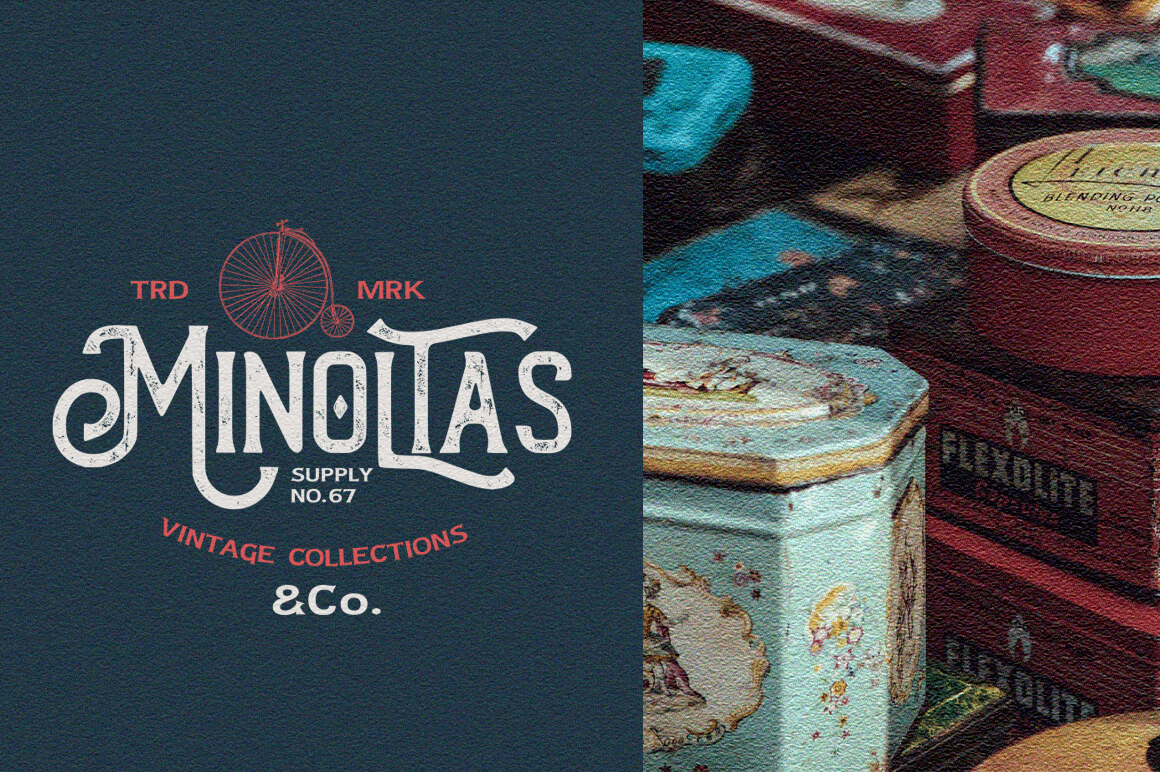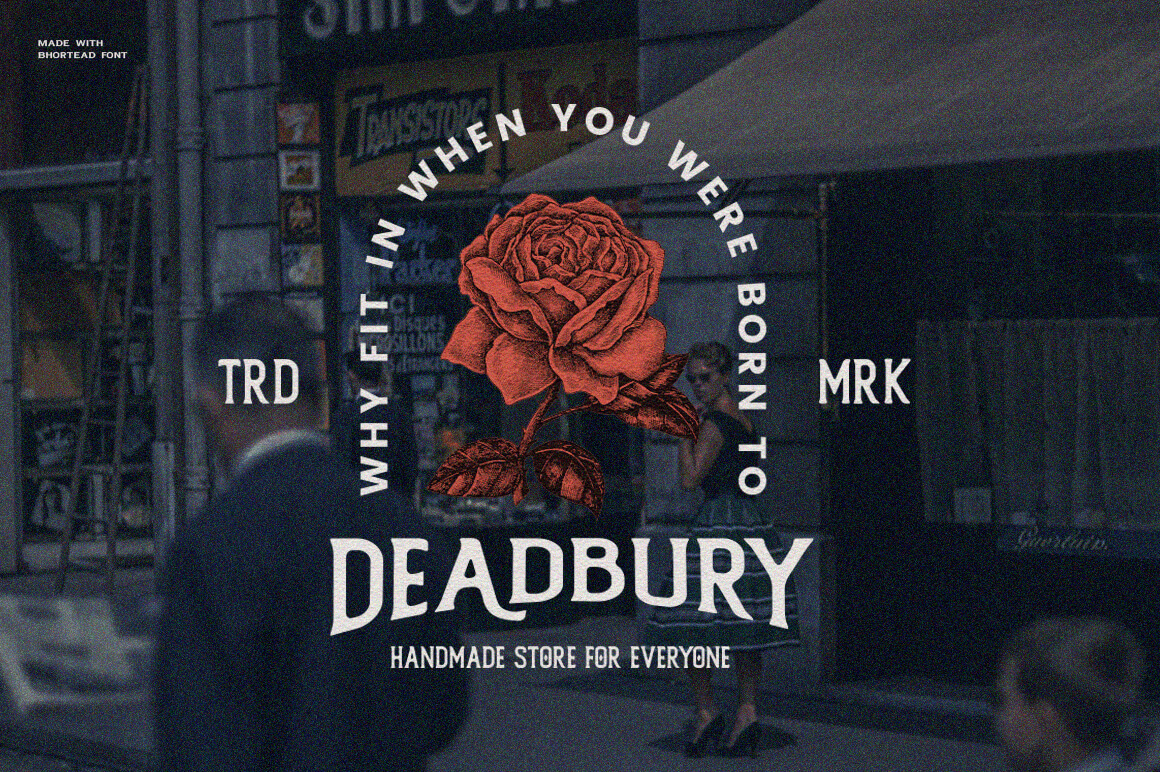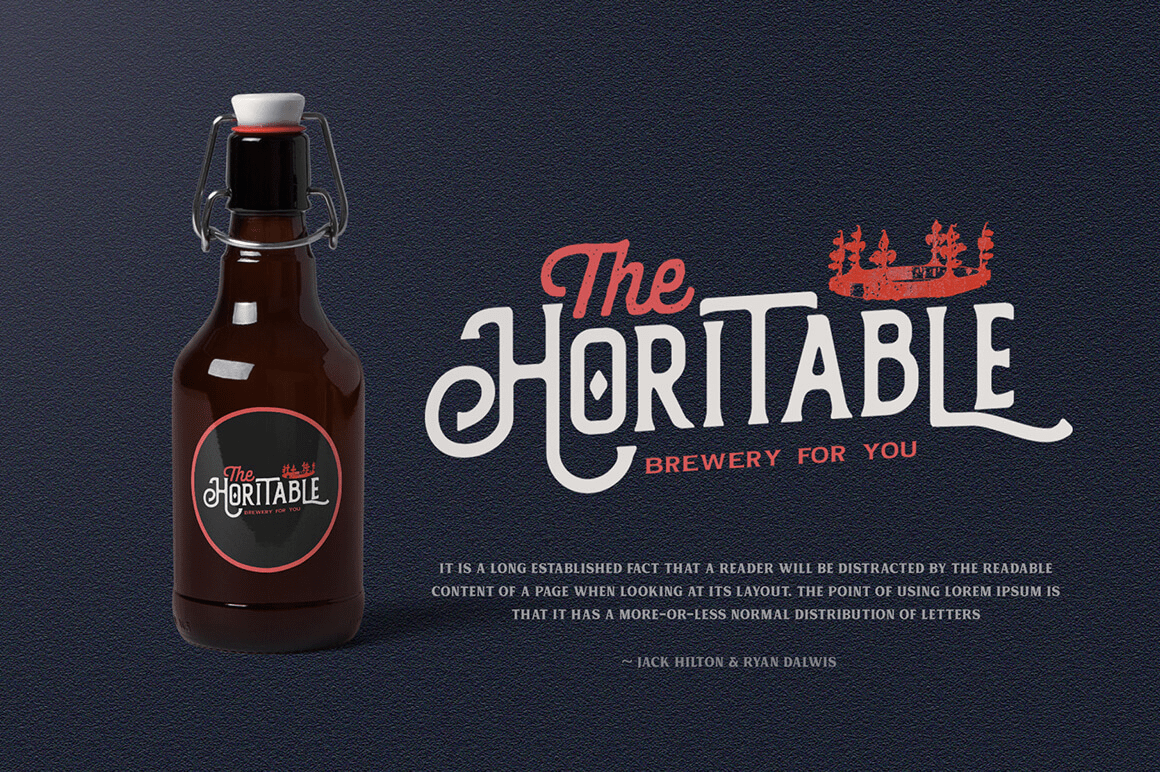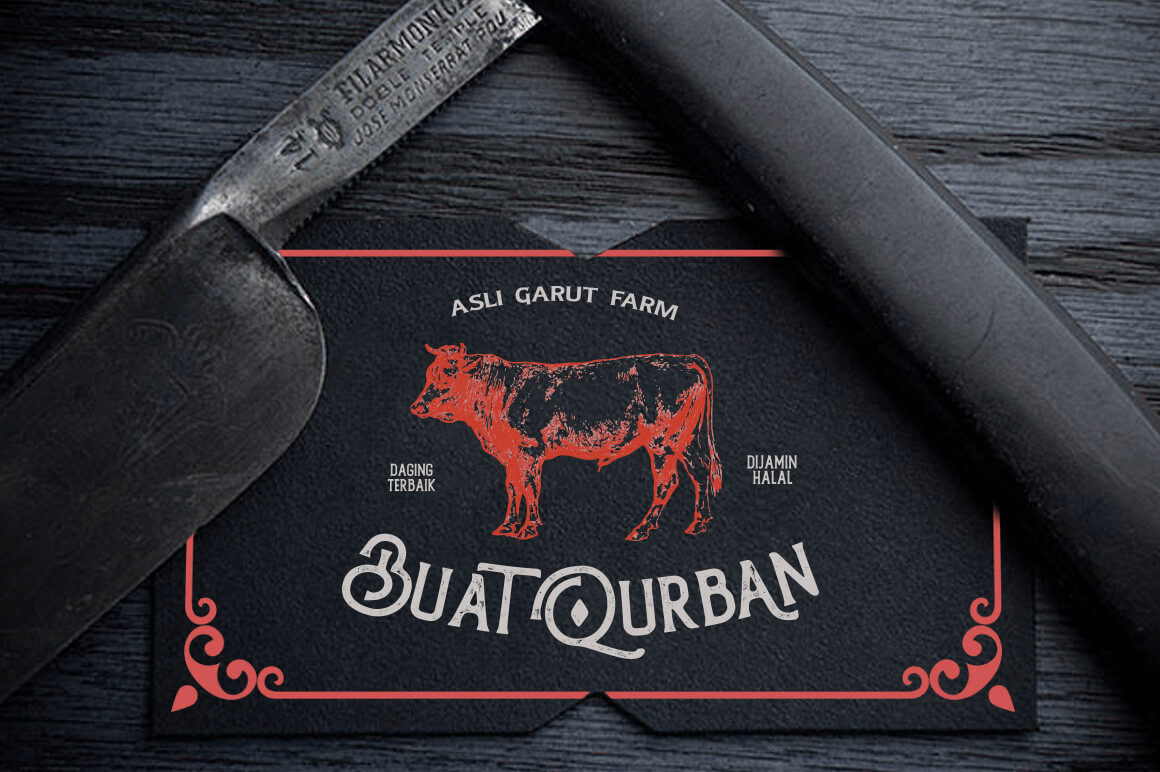
About The Bhortead
So, this time I made a font called The Bhortead that has a vintage stamp font that you can use for your project. This font has 2 styles – Clean and Rough – so you can use either style according to the type of project. Additionally, it has many opentype…